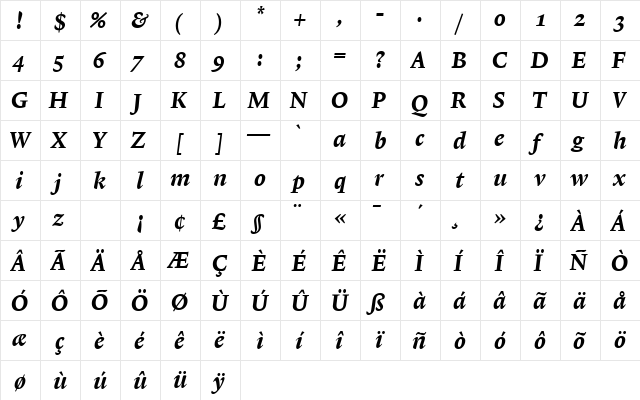
Lexicon No1 Italic D Med
Design Context for Lexicon No1 Typeface
Lexicon No1 takes a measured approach to typography — its balanced proportions and neutral character make it a reliable workhorse for both digital and print work. The dynamic lean of this cut emphasises speed and emphasis in any layout.
Pro Tip: Try Lexicon No1 for annotation and caption copy alongside an upright companion — the contrast in angle creates a dynamic but ordered typographic system.